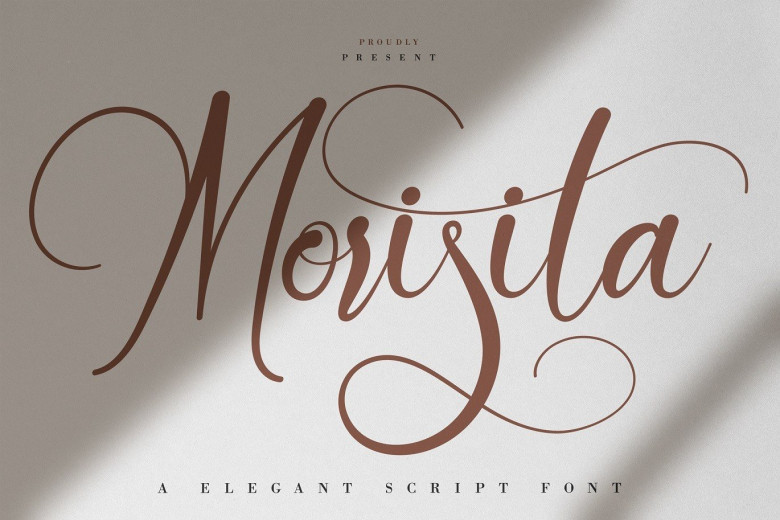
Morisita Calligraphy Script Font
Morisita Calligraphy Script Font with natural calligraphy script handwriting style perfect for many different project such as logos & branding, invitation, stationery, wedding designs, social media posts, advertisements, product packaging, poster, product designs, label, photography, watermark, special events or anything, quotes, fashion, etc…